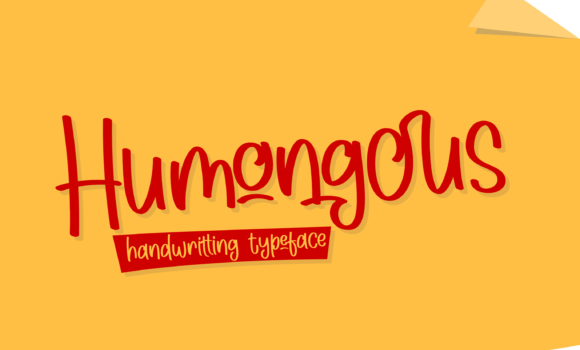
humongous
Humongous Font – Free Download Introduction to Humongous Font Humongous is a whimsical script font with a relaxed theme, featuring a lovely style. 📸 Preview Gallery 6 images 📌 Product Name Humongous Font 👤 Author Toko Laris Djaja 📂 Category